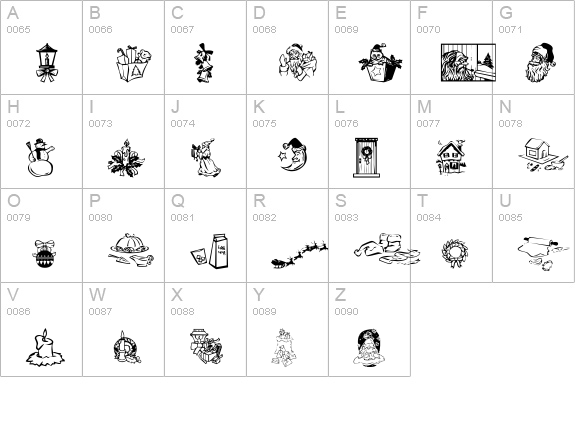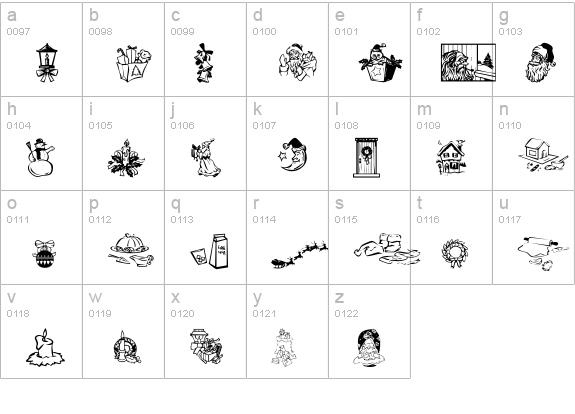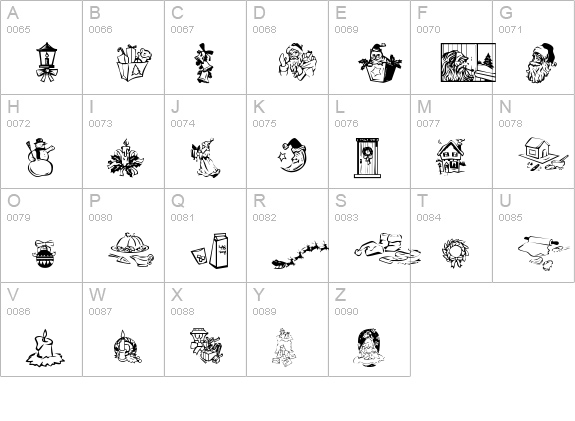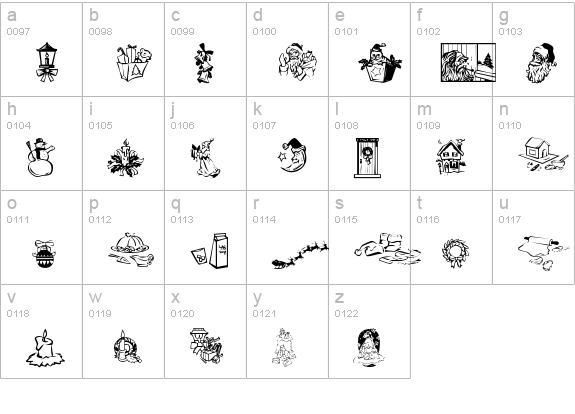
KR Christmas Dings 2004 Three Font Details
The KR Christmas Dings 2004 Three font is a whimsical and festive typeface that is perfect for adding a touch of holiday cheer to your designs. Featuring a variety of charming Christmas-themed icons and symbols, this font is sure to bring a smile to your audience's face. Best of all, the KR Christmas Dings 2004 Three font is available for free download at FontsMarket.com. Whether you're creating holiday greeting cards, party invitations, or festive social media posts, this font is a wonderful addition to your collection. Embrace the spirit of the season and spread joy with this delightful and free font!